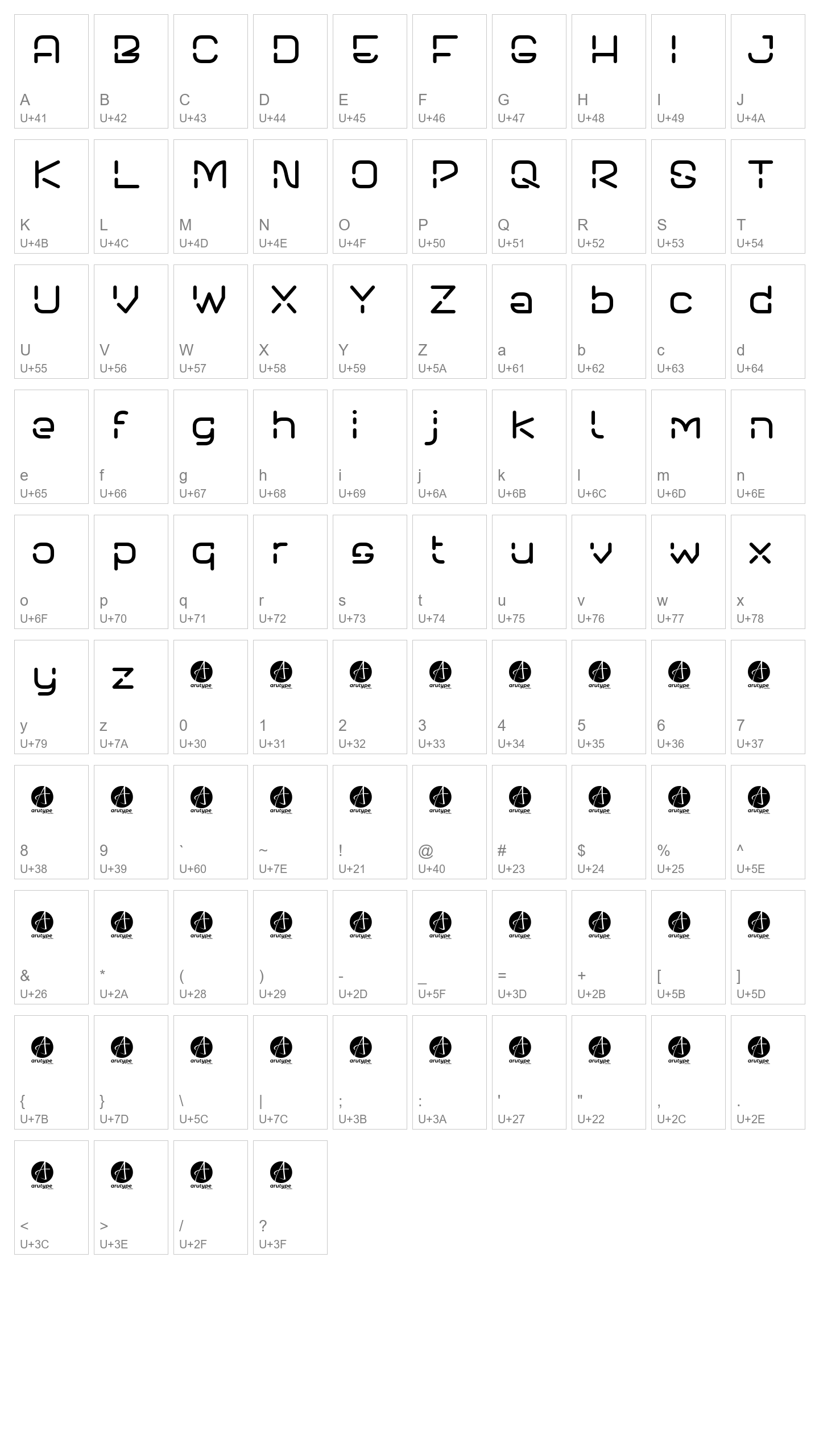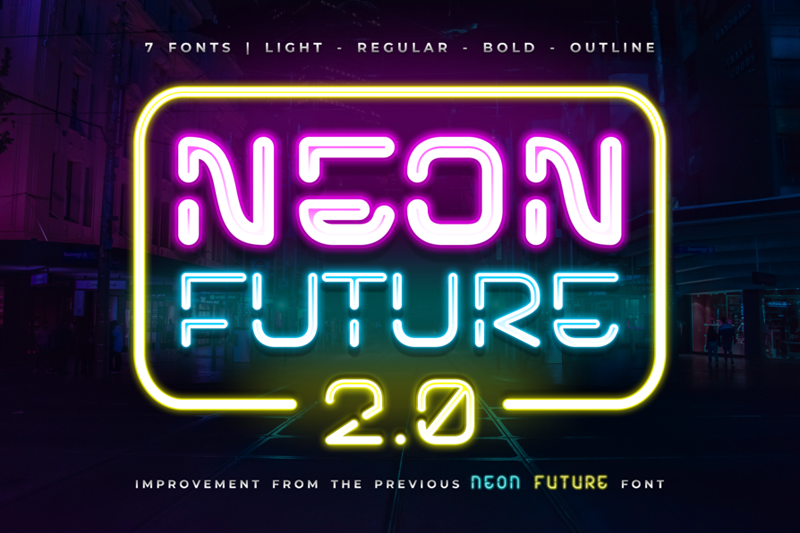
Neon Future 2.0
Neon Future 2.0 is a retro-futuristic display font with a timeless style. Major improvement of the Neon Future font at the link
. There are 7 variant fonts in the Neon Future 2.0 Pro version: Light, Regular, Alternative & Outline.